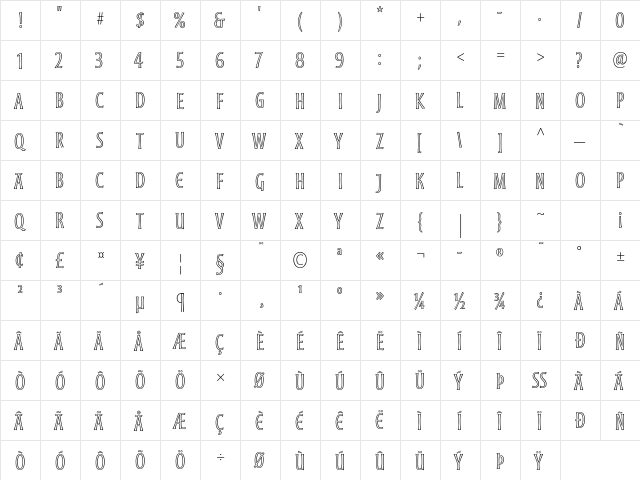
Moonglow Light Condensed
| Designer | Michael Harvey |
Design Context for Moonglow Typeface
Moonglow takes a measured approach to typography — its balanced proportions and neutral character make it a reliable workhorse for both digital and print work. Its slender proportions lend an understated elegance to any composition. The condensed width makes it efficient for tight spaces without sacrificing legibility.
Pro Tip: Use Moonglow in both headline and body roles to test its range before committing to a single application.